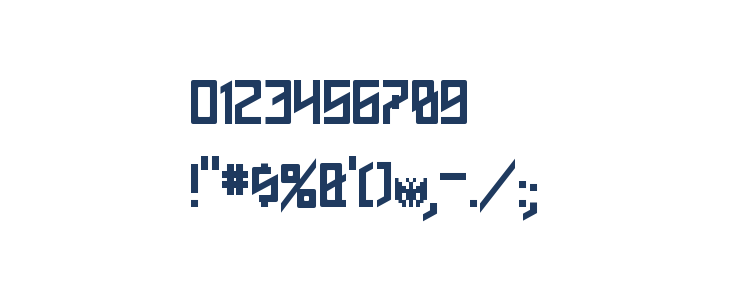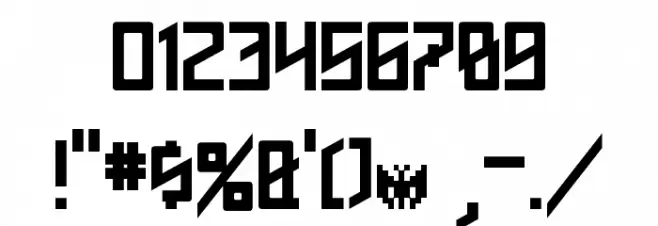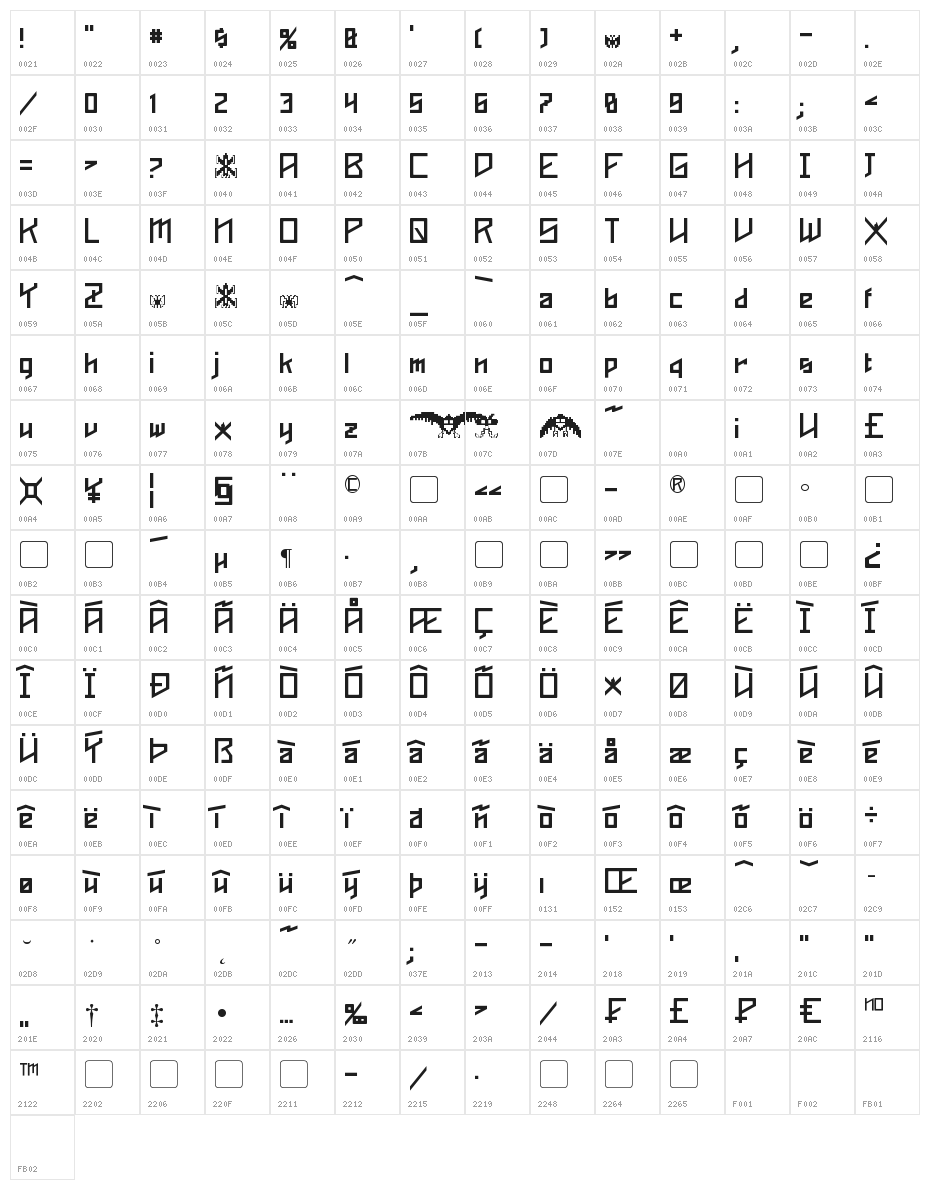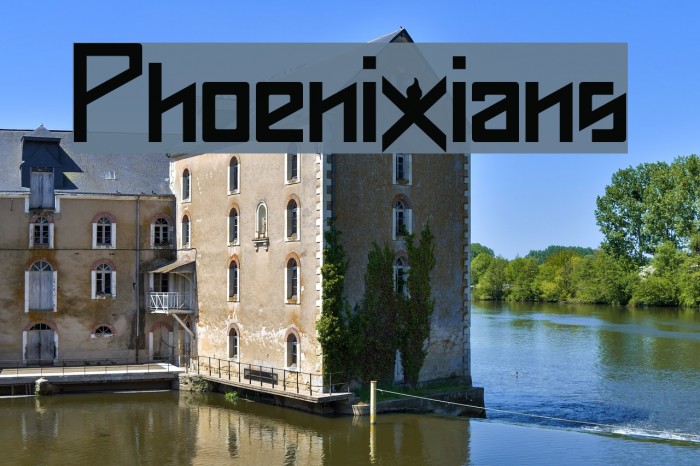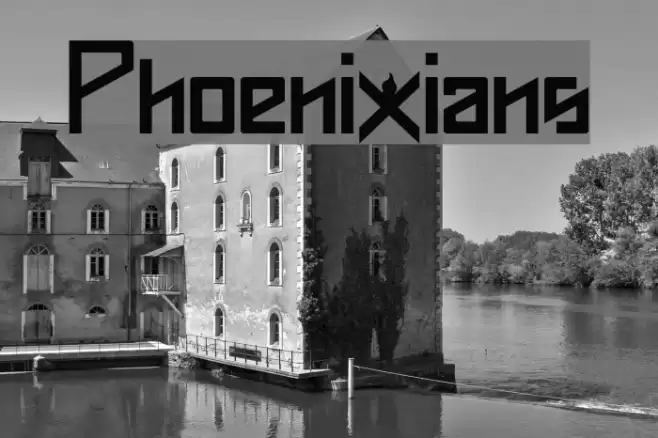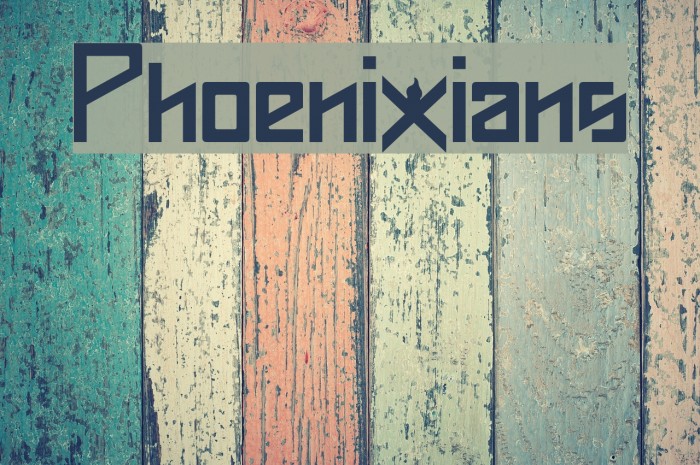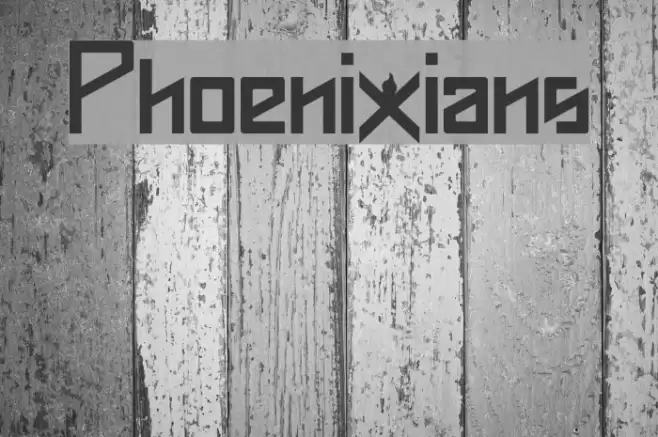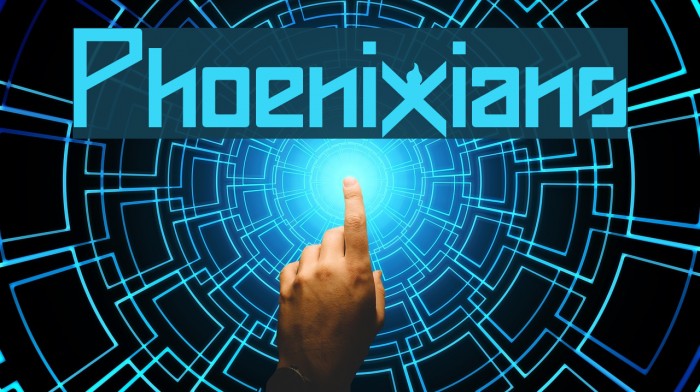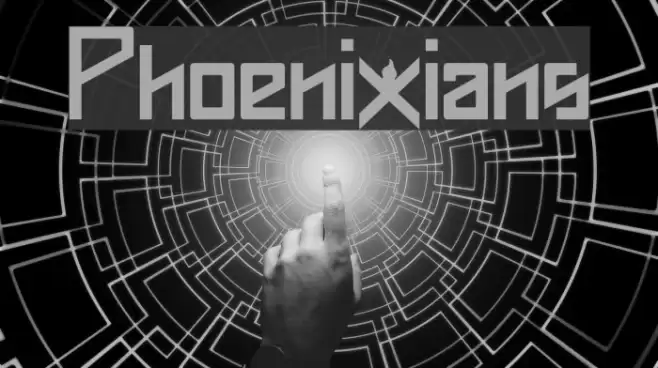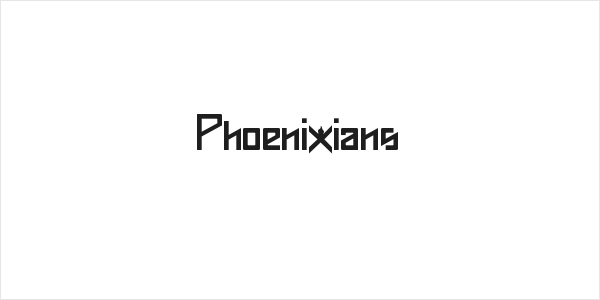
Phoenixians Font
Phoenixians Description
This font features a bold and angular design with a futuristic and geometric aesthetic. The characters are constructed with sharp edges and straight lines, giving them a modern and edgy appearance. The uppercase and lowercase letters maintain a consistent style, with some characters incorporating unique cuts and angles that add to the overall dynamic look. The numbers and special characters follow the same design principles, ensuring uniformity across the font. This typeface is visually striking and commands attention, making it suitable for projects that require a strong and impactful presence.